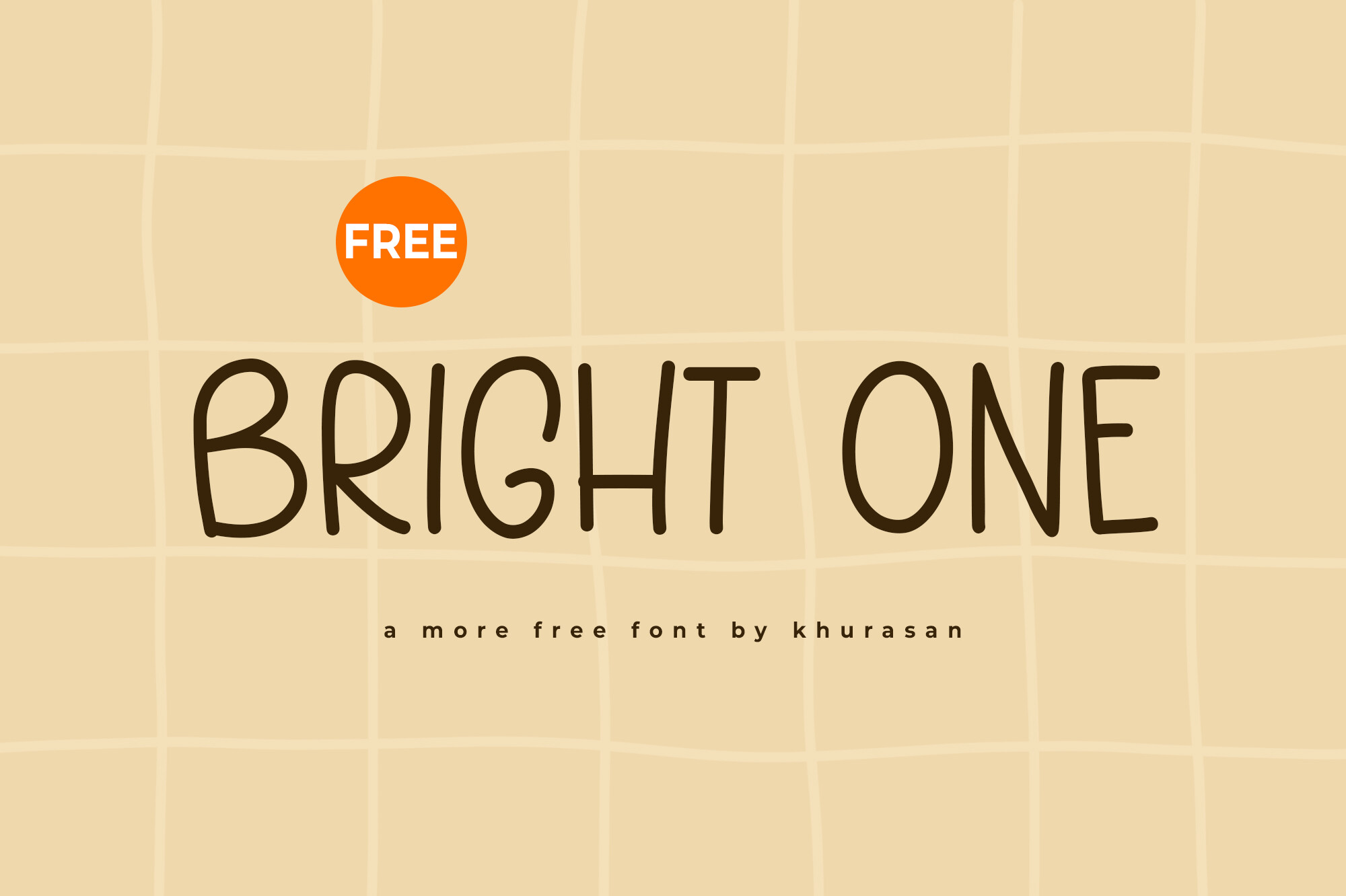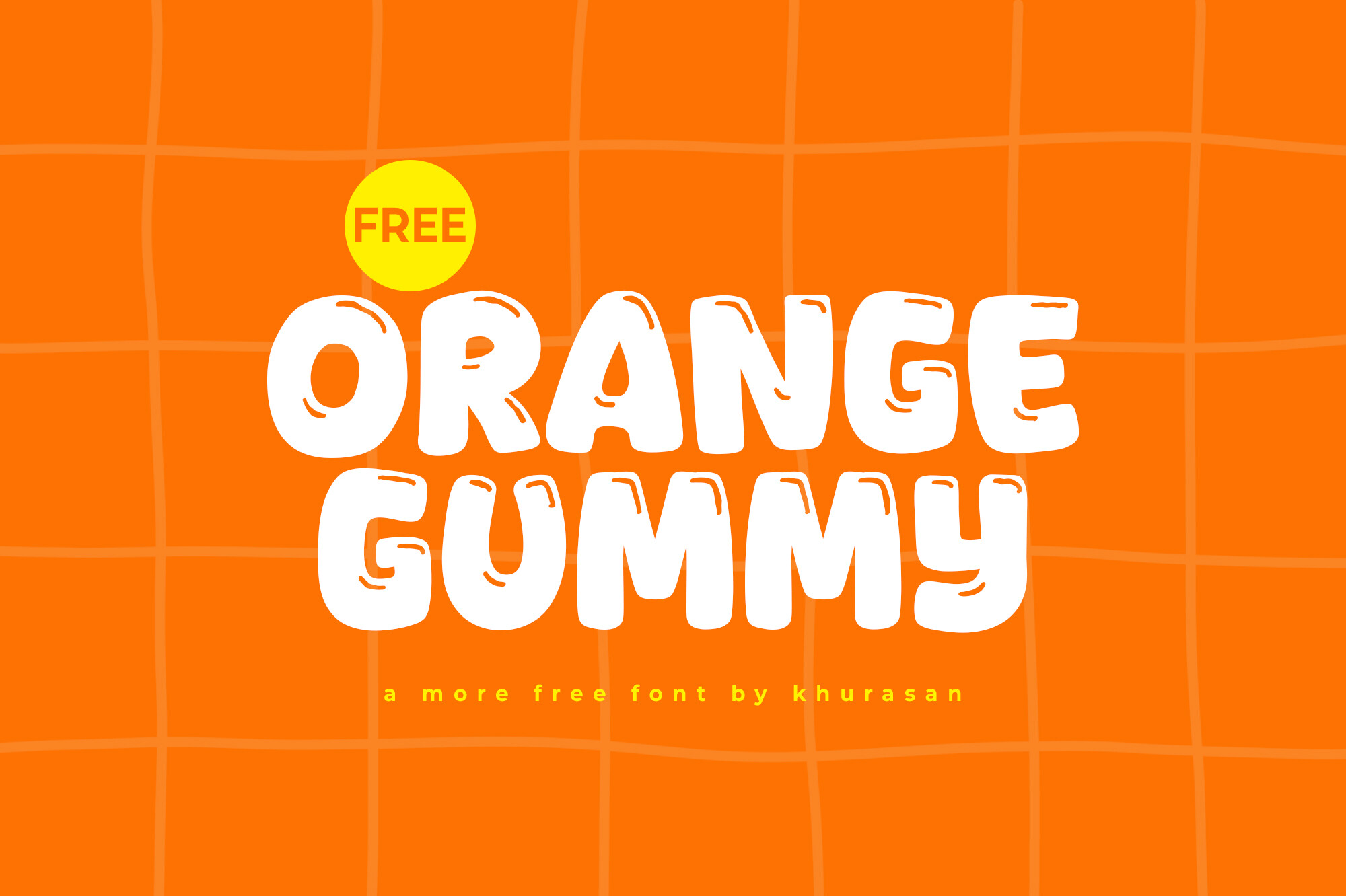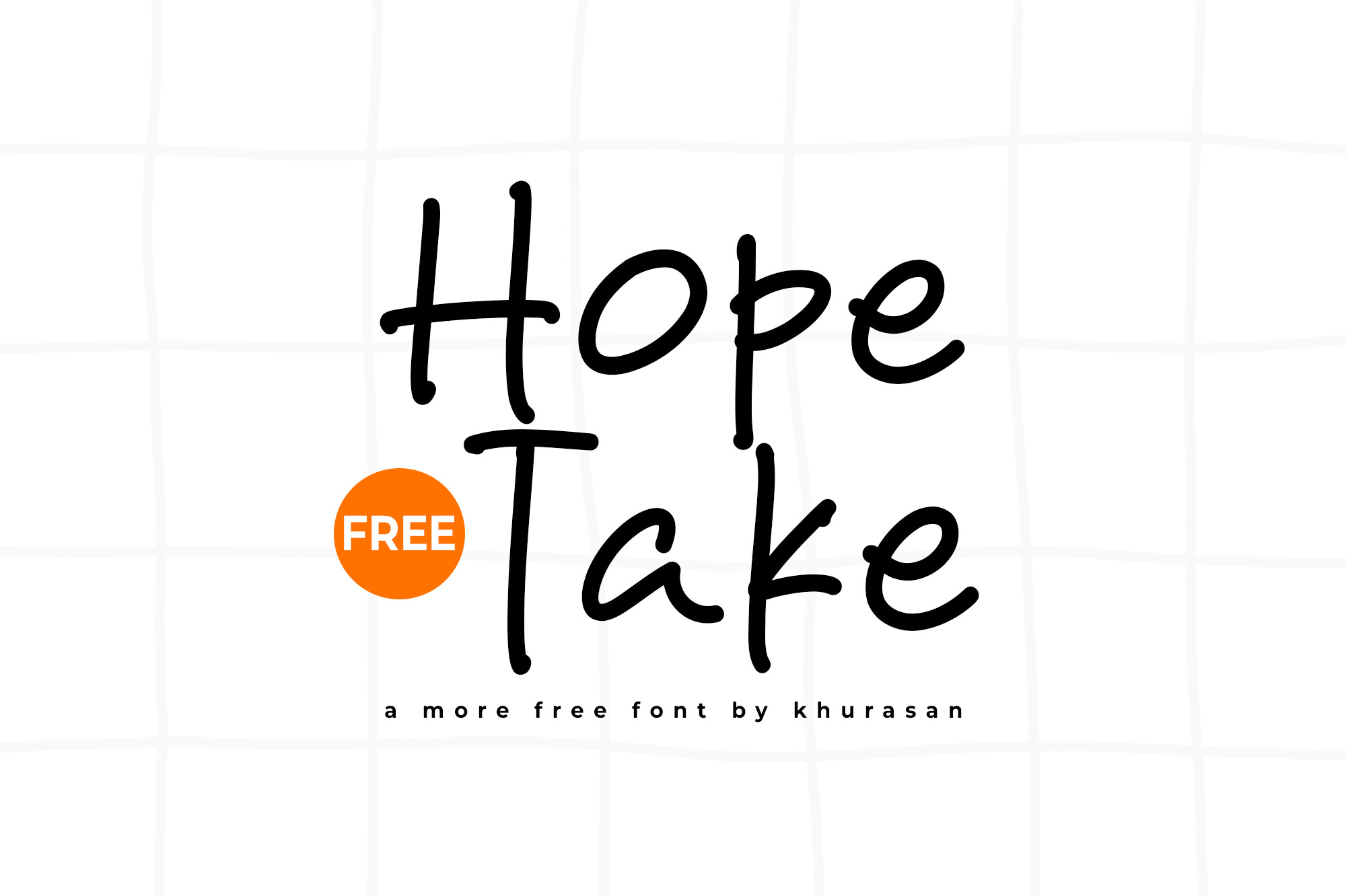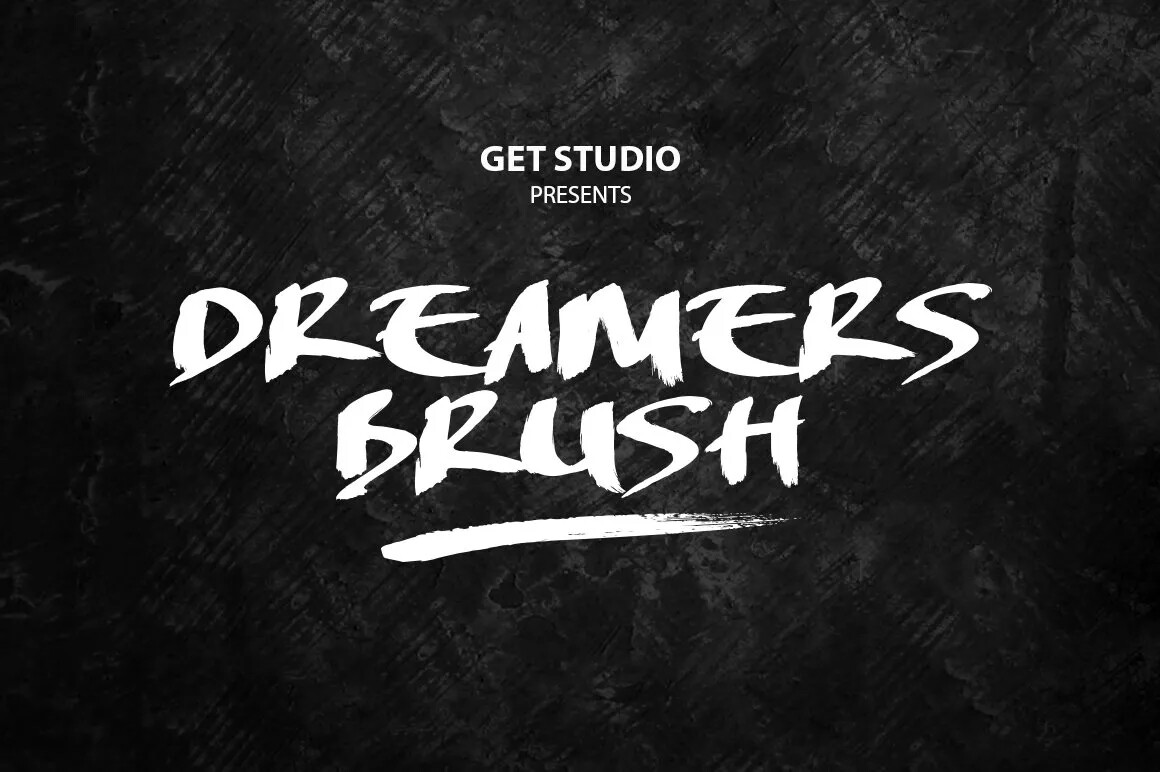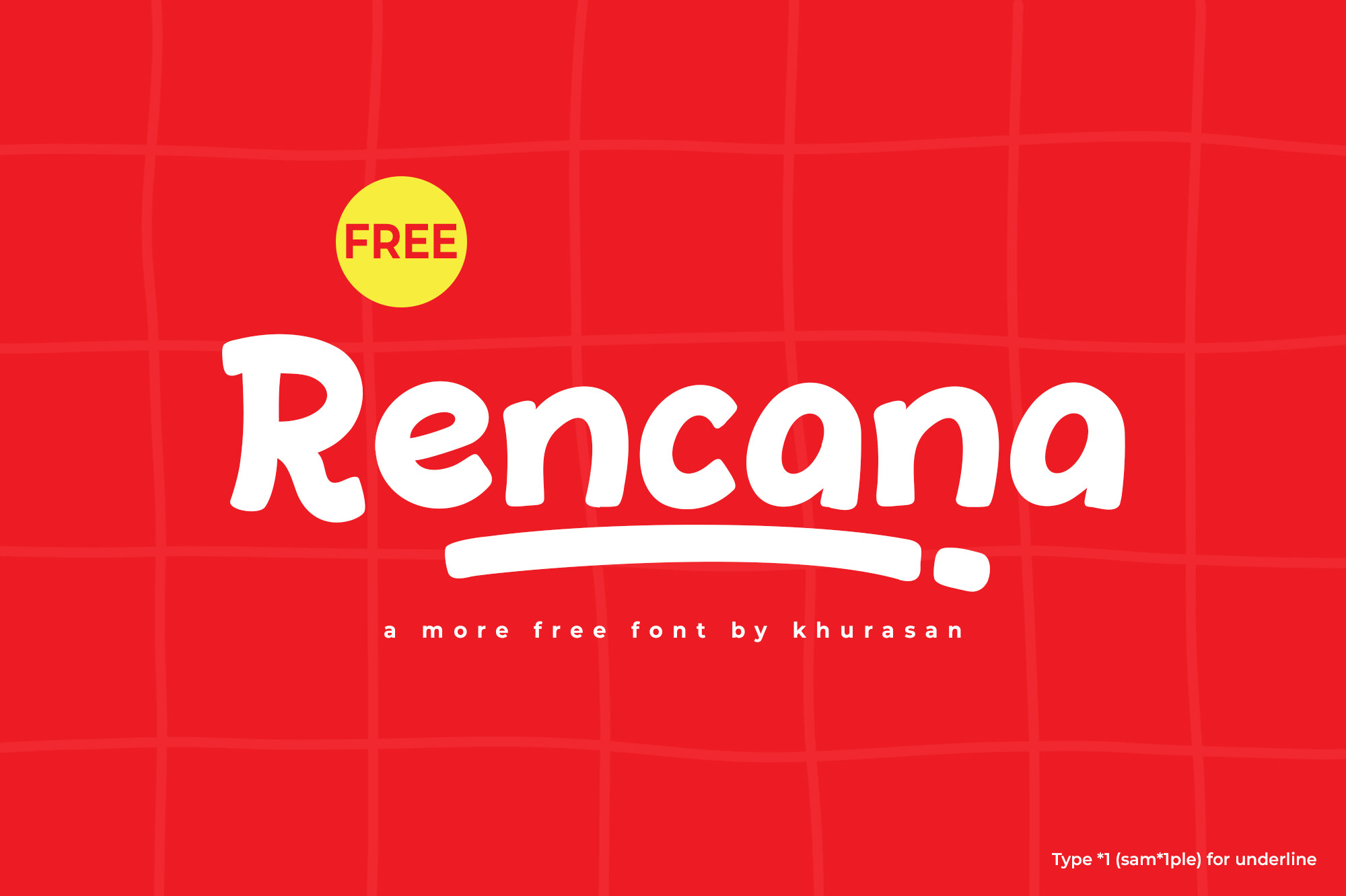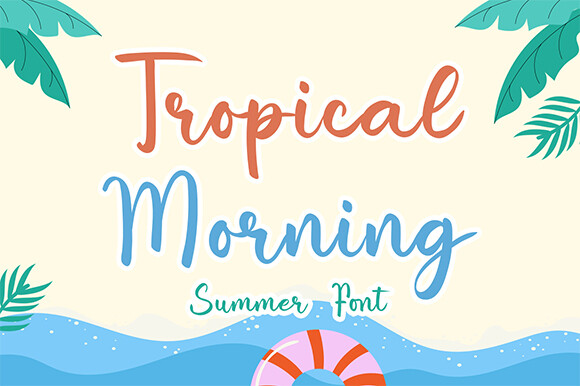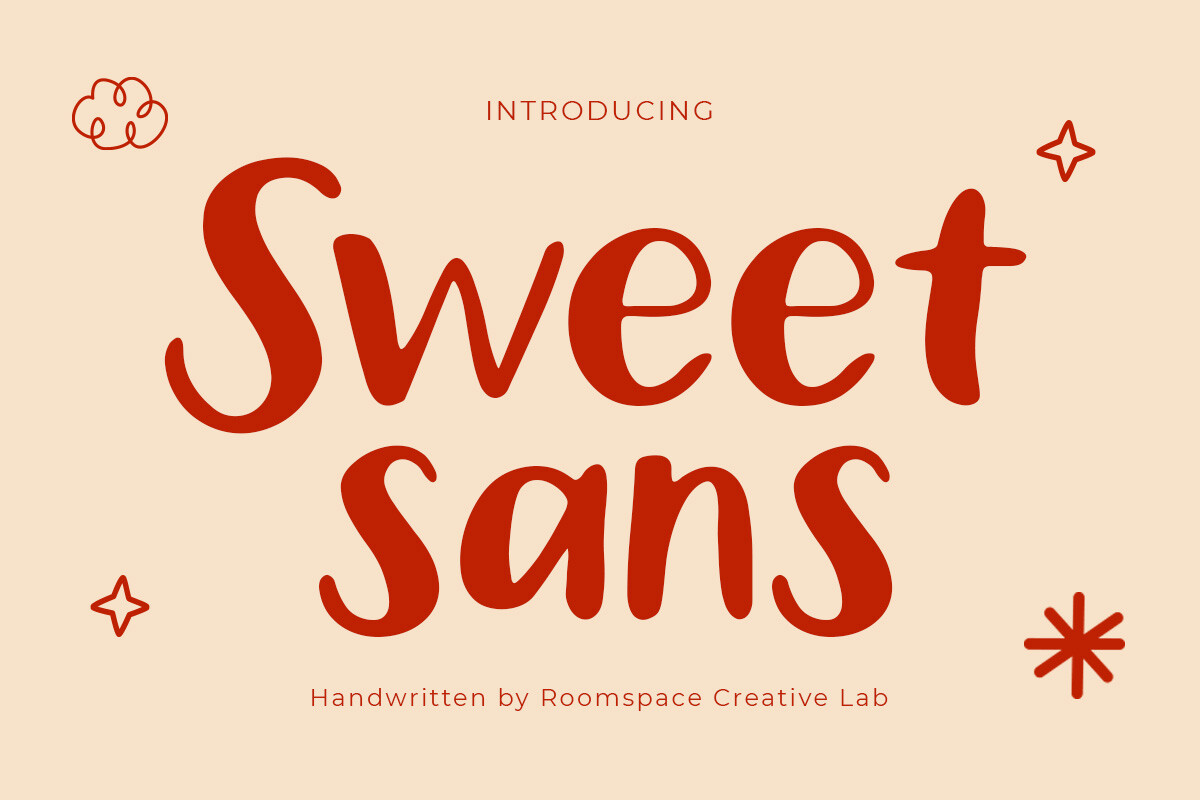
Dive into the world of free fonts with our latest collection featuring Bright One, Daisy Duck, Worktalk, Orange Gummy, Hope Take, Dreamers Brush, Notedry, Rencana, Tropical Morning, and Sweet Sans. Each font in this collection has been handpicked to enhance your design projects with flair and creativity. From playful handwritten styles to modern display fonts, these options are perfect for various applications, including branding, invitations, and social media graphics. Best of all, they are available for free and can be used commercially! Elevate your designs and express your creativity with these stunning fonts.
Bright One
Bright One is a charming and contemporary display font, ideal for various design projects such as posters, logos, and book covers. Its playful design makes it perfect for attracting attention, whether you're working on a magazine layout or a vibrant banner. This versatile font can enhance your creative endeavors, adding a touch of uniqueness to your designs. With its stylish appearance, Bright One can easily adapt to a wide range of projects, making it an essential addition to any designer's toolkit.
Daisy Duck
Daisy Duck is a whimsical, handwritten font that radiates fun and creativity. Perfect for craft enthusiasts, this font excels in various applications, including planners, stickers, and greeting cards. Its friendly and approachable style makes it an ideal choice for DIY projects, sublimation, and Cricut crafts. Whether you're designing a unique planner layout or creating heartfelt cards, Daisy Duck adds a personal touch that captures attention and conveys joy. This font is a must-have for crafters and designers looking to enhance their creative projects.
Worktalk
Worktalk is a stylish and modern display font that brings sophistication to your design projects. Whether you're creating posters, logos, or magazine layouts, this font provides an elegant touch that stands out. Its versatility allows it to fit seamlessly into a wide array of design applications, making it an invaluable asset for any designer. Worktalk’s unique characteristics ensure your work will capture attention and convey your message effectively. Add this font to your collection to elevate your creative projects with flair!
Orange Gummy
Orange Gummy is a delightful display font that combines modern aesthetics with a playful twist. It’s designed to enhance your creative projects, from logos to posters, by adding a fresh, vibrant feel. This font's unique character makes it perfect for various applications, whether you’re designing a fun advertisement or a whimsical greeting card. Orange Gummy is versatile enough to complement a wide range of design styles. Incorporate this font into your toolkit and watch your designs come alive with energy and charm.
Hope Take
Hope Take is a charming handwriting font that infuses designs with personality and warmth. This font is perfect for a variety of creative projects, including posters, logos, magazines, and book covers. Its inviting style makes it suitable for numerous applications, from branding to social media content. Hope Take enhances your designs by adding a personal touch that resonates with viewers. With its versatility and unique flair, this font is an excellent choice for any creative looking to make their projects stand out.
Dreamers Brush
Dreamers Brush is a beautifully crafted brush font that captures the essence of handmade artistry. Perfect for a variety of applications, including wedding invitations, greeting cards, and social media posts, it adds a personal touch to your designs. The fluid strokes of Dreamers Brush allow for quick and easy hand-lettering, making it an ideal choice for creatives who appreciate a handcrafted look. With its versatility and charm, this font can elevate your projects by providing an authentic, artistic flair.
Notedry
Notedry is a striking and contemporary display font that brings a unique flair to your designs. This versatile font shines in various applications, including posters, logos, and book covers. Its modern appeal combined with a playful touch makes it suitable for both professional and casual projects. Notedry enhances your creative ideas, ensuring they stand out with its eye-catching style. This font is a fantastic choice for designers looking to add a distinctive character to their work and elevate their branding efforts.
Rencana
Rencana is a unique and stylish display font that adds a modern touch to any design project. Its creative flair makes it an excellent choice for various applications, such as posters, logos, and magazines. This versatile font can easily adapt to different styles, ensuring your designs stand out with personality and charm. Rencana is perfect for designers who want to make a bold statement in their work, elevating their projects to new heights. Incorporate this font into your design toolkit to enhance your creative expression.
Tropical Morning
Tropical Morning is a lively and refreshing handwritten script font that embodies the essence of summer. Its playful and carefree style brings a touch of warmth and joy to various design projects. Ideal for greeting cards, invitations, and social media graphics, this font captures the spirit of sunny days and tropical vibes. Whether you're designing a cheerful poster or a charming invitation, Tropical Morning adds a delightful flair that enhances your creative expression. This font is perfect for those looking to infuse their designs with a sense of fun and relaxation.